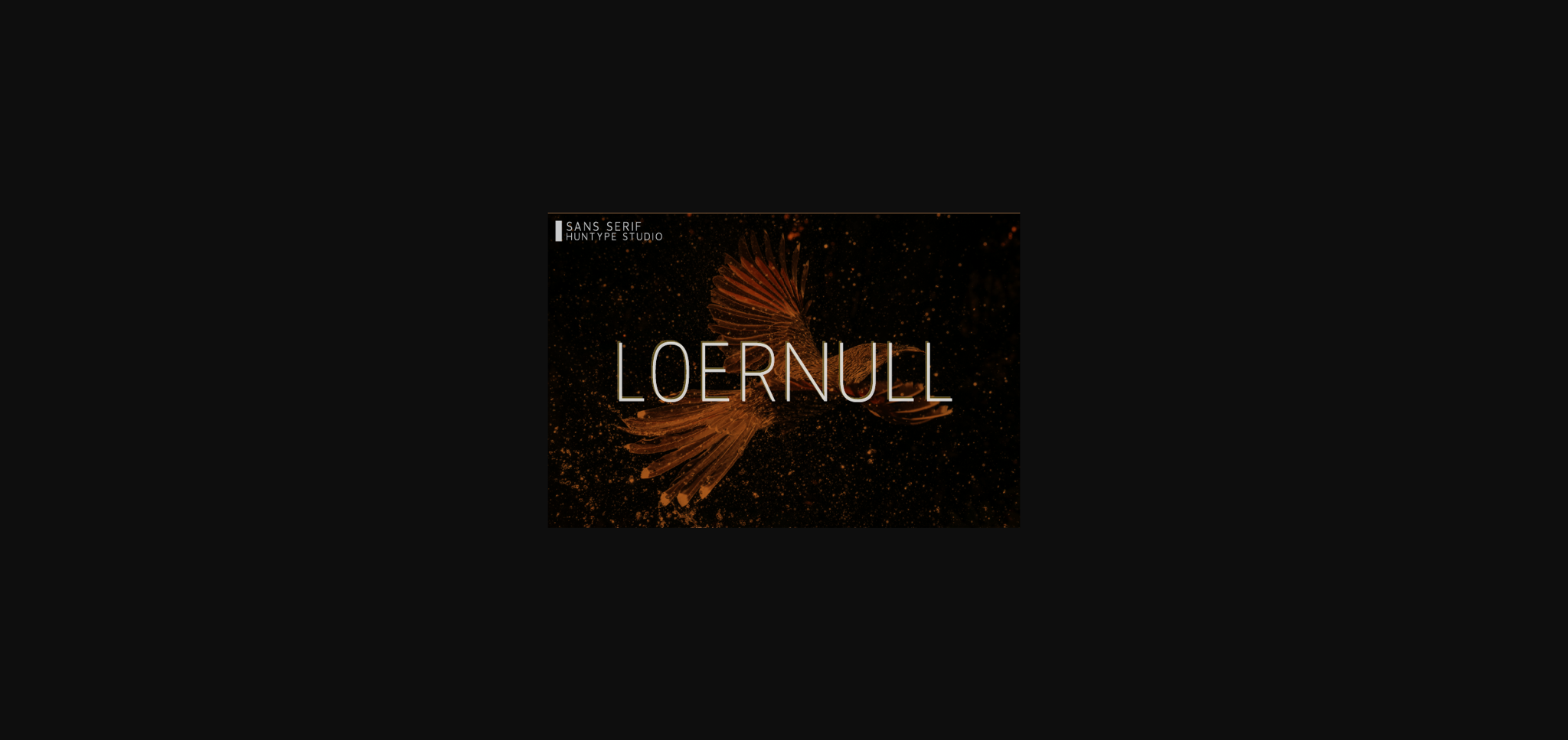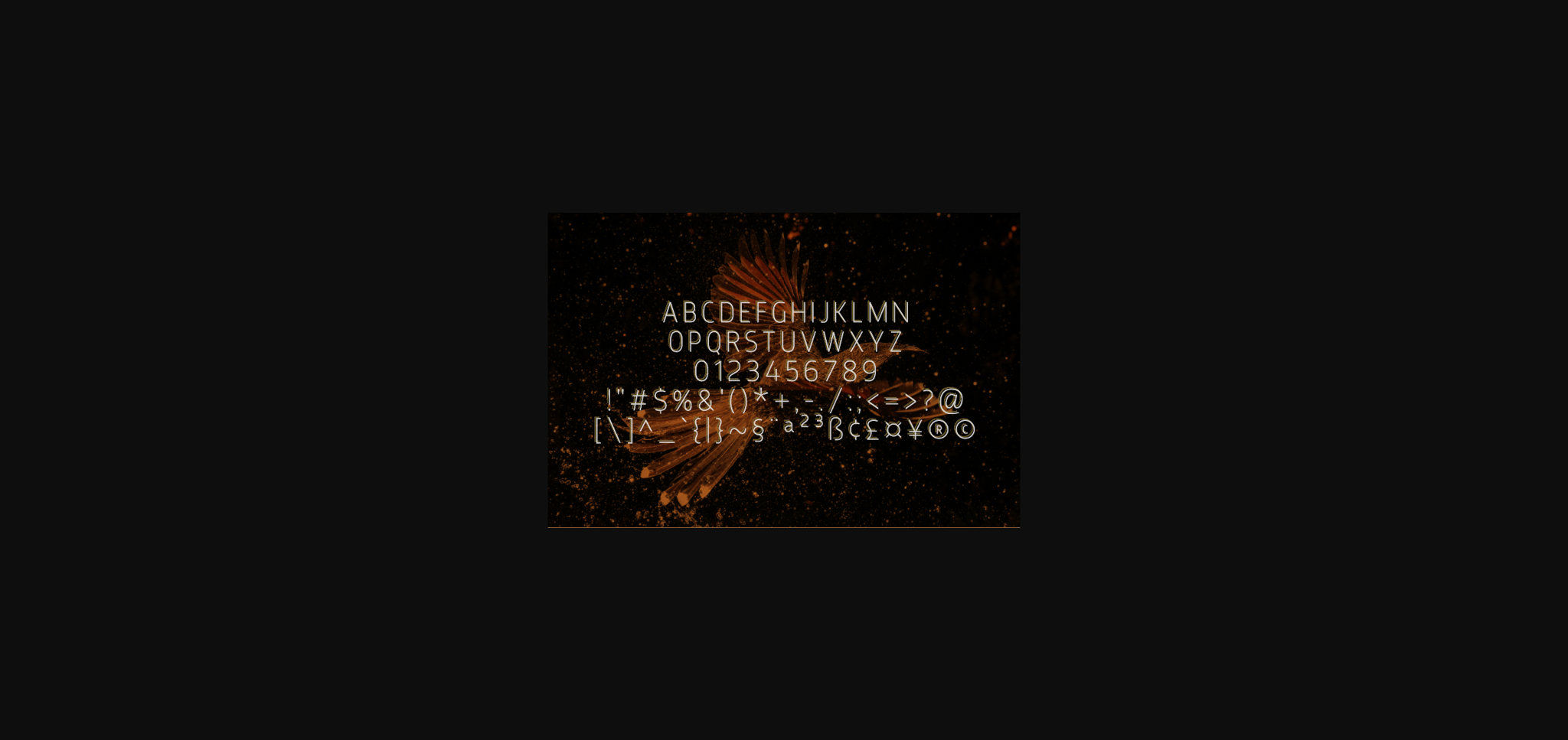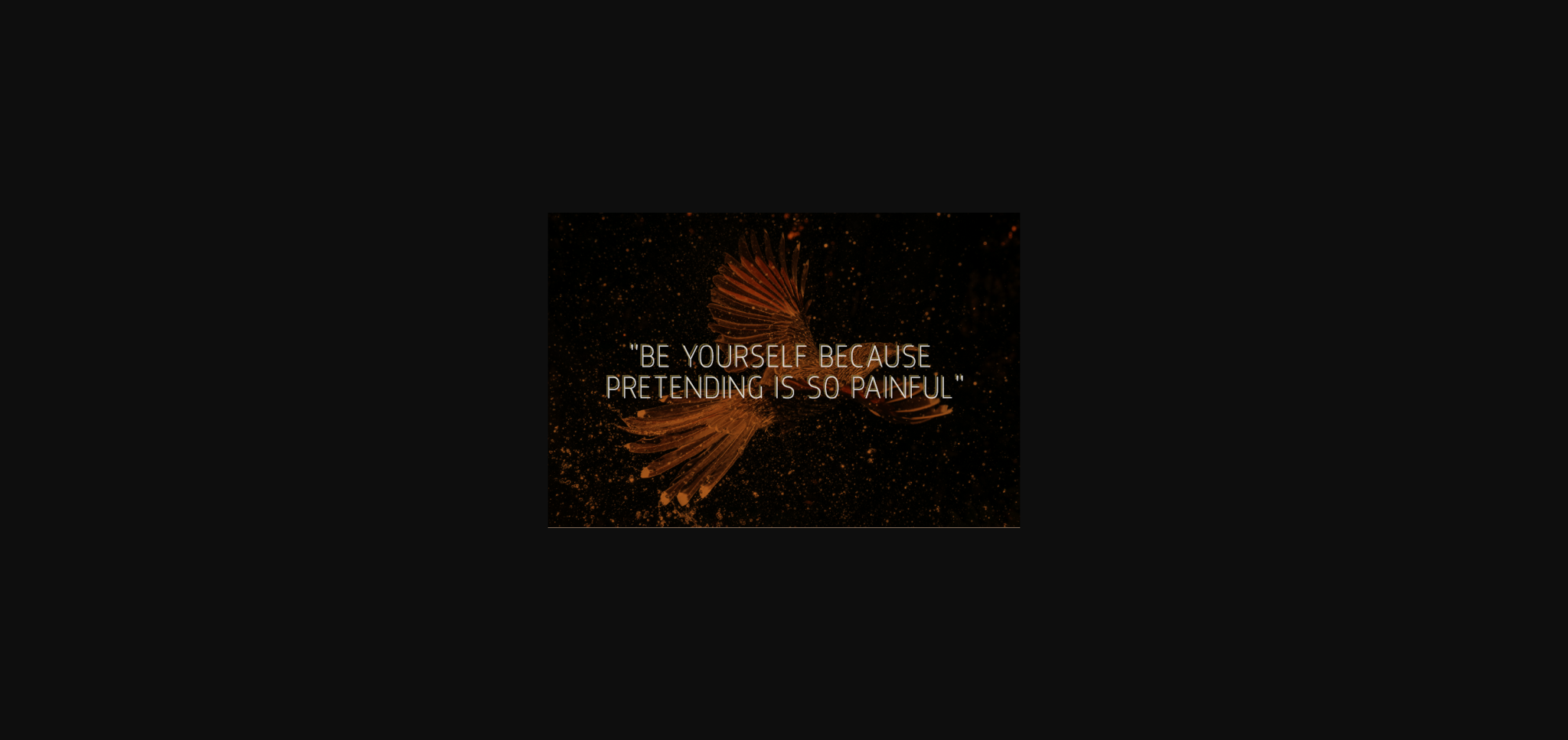
HomeSans Serif FontsLoernull Font Sans Serif Fonts Loernull Font FacebookTwitterPinterestWhatsApp 1 of 5 ... Loernull Font Poster 2... Loernull Font Poster 3... Loernull Font Poster 4... Loernull Font Poster 5... About Loernull Font Loernull is a thin and tall lettered sans serif font. Fall in love with its incredibly versatile style and use it to create spectacular designs! DOWNLOAD NOW 112 0 People also explored Adam Script Font Geuli Font Saturday Font Meridiana Pro Font Winter Short Font Market Square Daffodil Berlie Font Waldner Font Halloween Font Roadbay Inline Bold Condensed Font Thing King Font TagsLoernull Font Previous articleDensa Family FontNext articleBlack Tone Font LEAVE A REPLY Cancel reply Comment: Please enter your comment! Name:* Please enter your name here Email:* You have entered an incorrect email address! Please enter your email address here Website: Save my name, email, and website in this browser for the next time I comment. Unlock Endless Creativity with the FREE September Clipart Huge Bundle (Valued at $700!) Personal Use Free Imelda Personal Use Free Read more Open Store Personal Use Free Read more Almonte Personal Use Free Read more Deftone Personal Use Free Read more BLOG Using Fonts in Digital Marketing: Tips to Strengthen Your Brand Identity In the realm of digital marketing, every visual element plays a crucial role in shaping a brand's identity, and fonts are no exception. The... Top 7 Google Fonts Alternatives for Faster and Privacy-Friendly Web Design (2025) The 10 Best Handwriting Fonts to Add Personality to Your Designs To increase your work productivity, choose the most readable fonts.